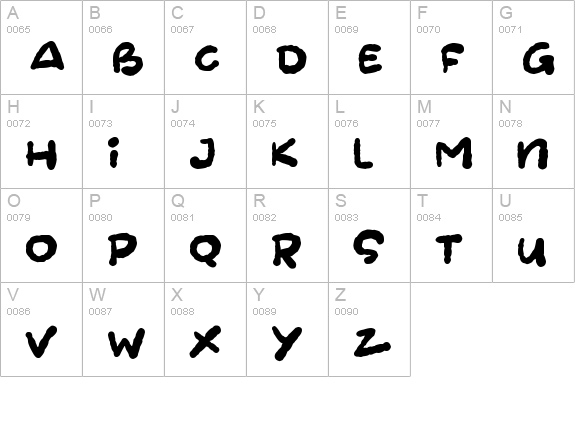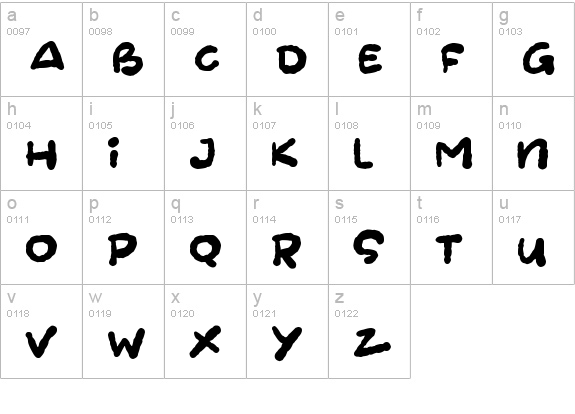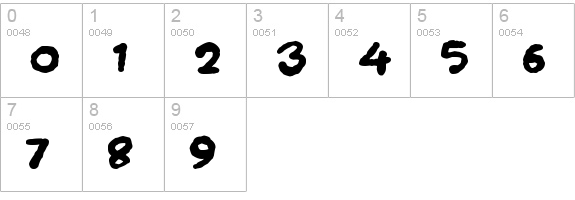
Cloudheads Font Details
Cloudheads is a free for personal use font in the Script > Handwritten category, designed by Darrell Flood. It has been downloaded 31 times and is available for Windows, Mac and Linux.
Cloudheads font is a whimsical and playful typeface that exudes a sense of lightness and airiness. Its fluffy, cloud-like shapes and rounded edges give it a friendly and approachable feel, making it perfect for designs that aim to evoke a sense of creativity and imagination. The soft curves and smooth lines of Cloudheads make it a versatile choice for a wide range of projects, from branding and packaging to social media graphics and invitations.